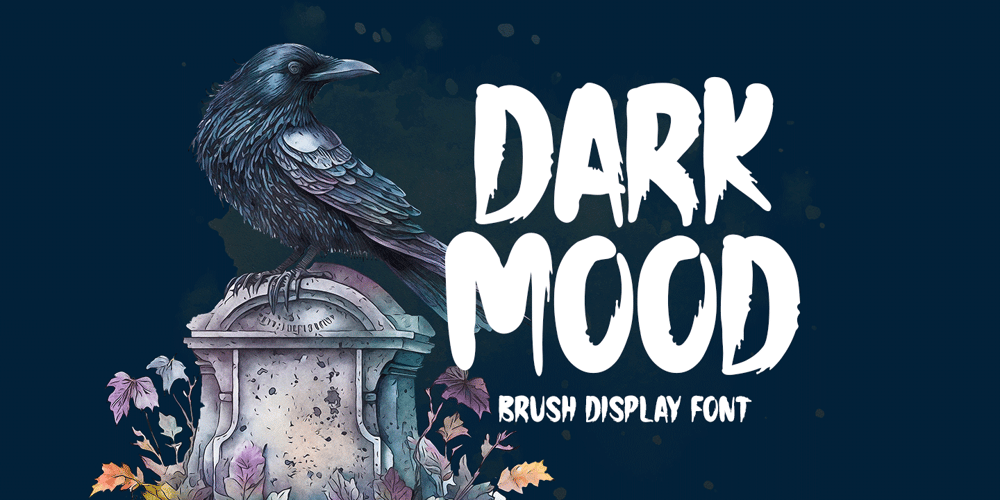
Dark Mood
Dark Mood font
Dark Mood Font Family was designed by Md Shohail Bhuian and published by Seemly Fonts. Dark Mood contains 1 styles and family package options. A brush display font, Dark Mood. For stationery, logos, t-shirts, paper, print design, website headers, picture frames, flyers, album covers, posters, image sliders, and other things, this typeface is ideal.